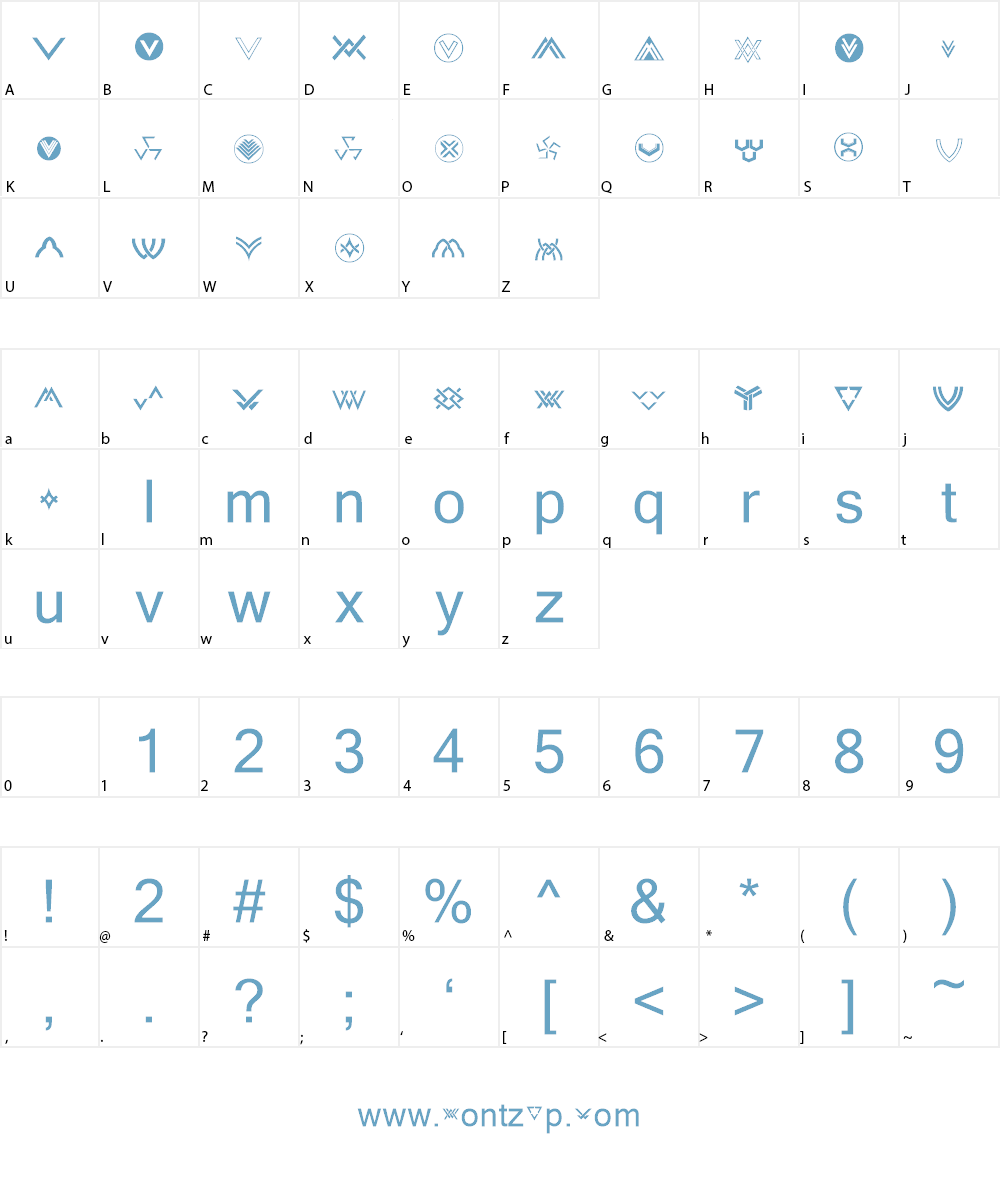
the first in a series of dingbat fonts based on the most basic of design elements.
The chevron is a symmetrical v-shape - an isoceles triangle that is missing one side. Chevron takes its name from French for "gable or rafter" for obvious visual reasons, and its use as a designate of ownership or rank has flourished.